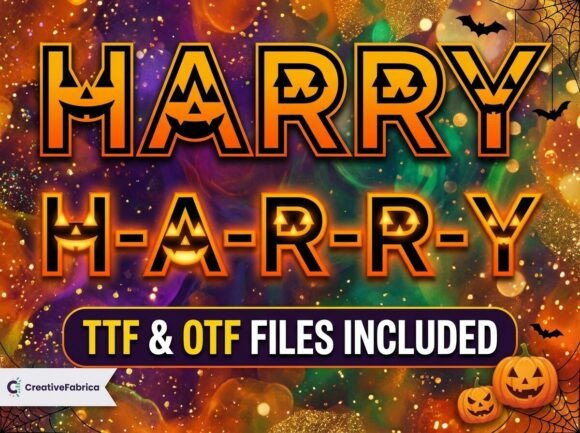
Introducing Harry Font: The Ultimate Decorative Display Font
Are you tired of using the same old fonts in your designs? Look no further than Harry Font, a stunning decorative display font that’s sure to turn heads. With its unique artistic elements and strong visual personality, this font is perfect for creators who want to break away from the ordinary and make a statement.
What Makes Harry Font So Special?
Harry Font is a game-changer for designers who want to add a touch of creativity and sophistication to their work. Its intricate details and creative letterforms make it ideal for high-impact designs where the typography needs to do the talking. Whether you’re designing a modern poster, a unique brand identity, or eye-catching social media content, Harry Font adds an instant “wow” factor to any project.
One of the best things about Harry Font is its versatility. It’s perfect for a wide range of design projects, including:
- Poster Design: Create headlines that people can’t look away from. Harry Font is perfect for creating eye-catching posters that grab attention and leave a lasting impression.
- Branding & Logos: Build a unique identity for creative businesses. With its intricate details and creative letterforms, Harry Font is ideal for creating distinctive logos and brand identities that set you apart from the competition.
- Apparel & Merch: Perfect for T-shirts, hoodies, and tote bag designs. Harry Font adds a touch of style and sophistication to any apparel or merchandise design.
- Social Media: Make your quotes and announcements stand out in the feed. With Harry Font, you can create eye-catching social media content that grabs attention and drives engagement.
- Packaging: Give your products a premium feel with Harry Font. Its professional and polished finish makes it perfect for creating eye-catching packaging designs that stand out on store shelves.
Why Choose Harry Font?
So why choose Harry Font over other decorative display fonts? Here are just a few reasons:
- Unique Artistic Elements: Harry Font features unique artistic elements that set it apart from other fonts. Its intricate details and creative letterforms make it perfect for creating high-impact designs.
- Strong Visual Personality: Harry Font has a strong visual personality that demands attention. It’s perfect for designers who want to create bold and eye-catching designs that leave a lasting impression.
- Professional and Polished Finish: Despite its creative and artistic elements, Harry Font maintains a professional and polished finish. It’s perfect for designers who want to create high-quality designs that reflect their brand’s values and personality.
Tips for Using Harry Font Effectively
Here are a few tips for using Harry Font effectively in your designs:
- Use it as a Headline Font: Harry Font is perfect for use as a headline font. Its bold and eye-catching design makes it perfect for grabbing attention and drawing the reader’s eye.
- Experiment with Different Colors: Harry Font looks great in a variety of colors. Experiment with different colors and combinations to find the one that works best for your design.
- Pair it with a Simpler Font: For body text, pair Harry Font with a simpler font to create contrast and visual interest.
In conclusion, Harry Font is a stunning decorative display font that’s perfect for designers who want to break away from the ordinary and make a statement. Its unique artistic elements, strong visual personality, and professional and polished finish make it ideal for a wide range of design projects. Whether you’re designing a modern poster, a unique brand identity, or eye-catching social media content, Harry Font is the perfect choice.